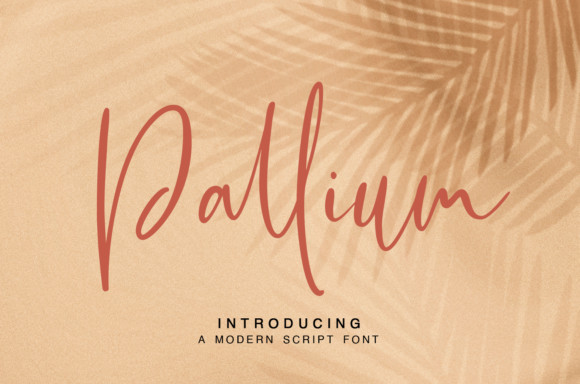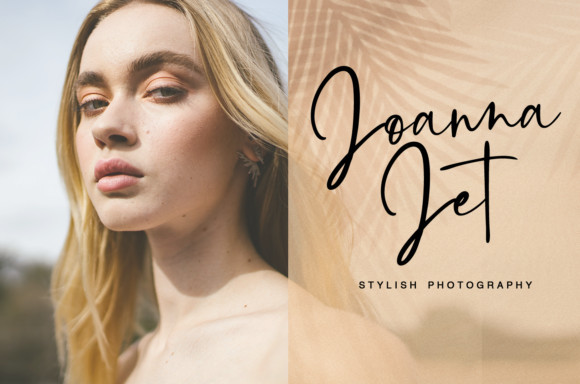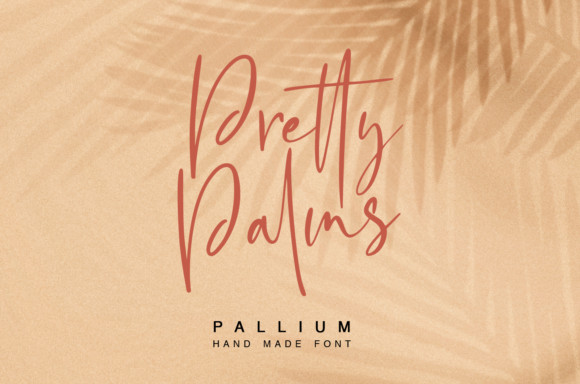
Pallium Font
Pallium is a timeless and relaxed handwritten font. It is the best choice for creating eye catching logos, branding and quotes. Every letter has a unique and beautiful touch, which will make your design come alive!